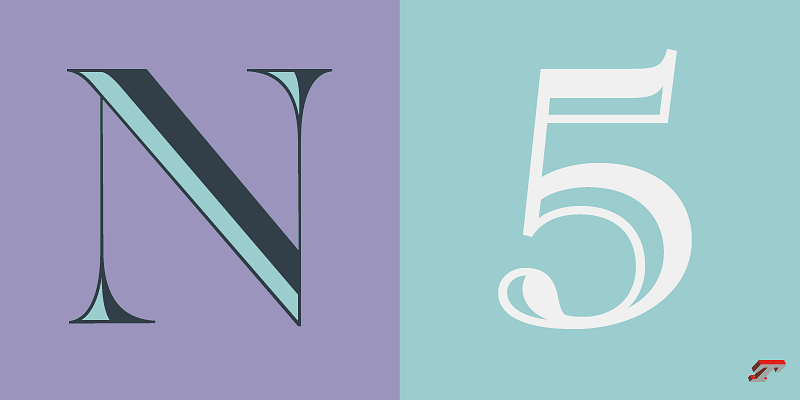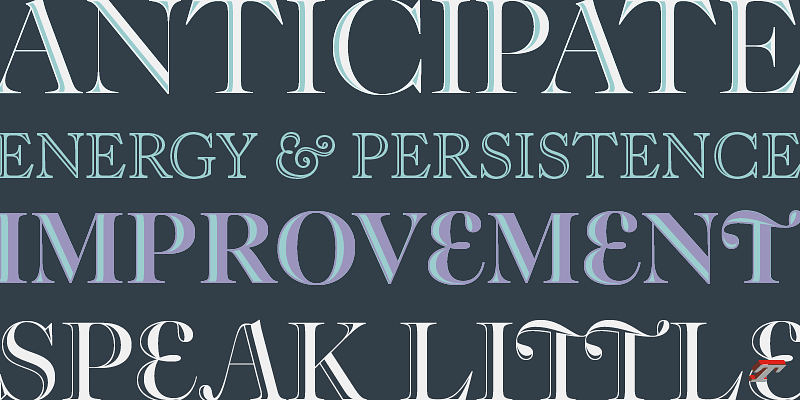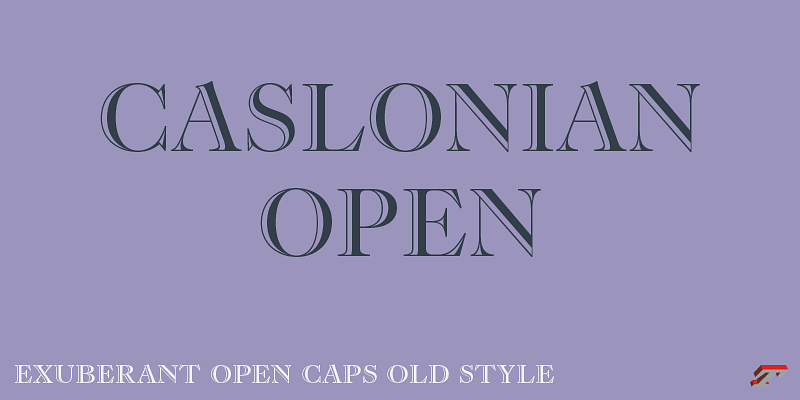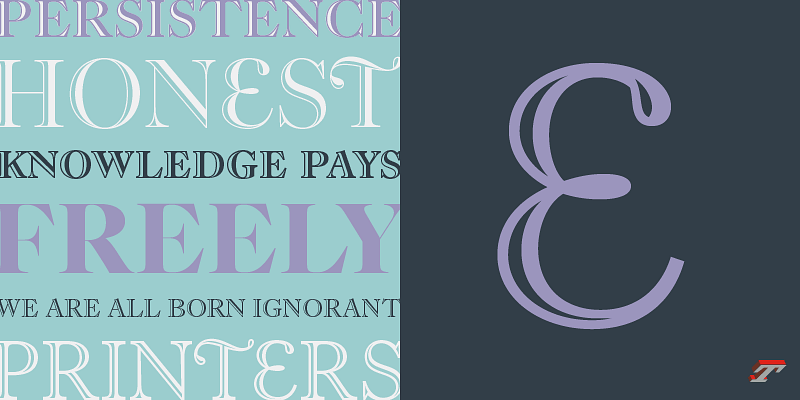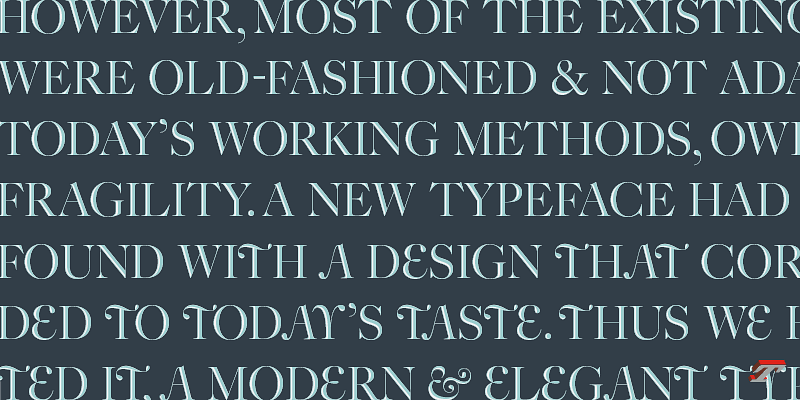
Caslonian Open allows the illuminated open part of the letter to be in different color when they are superimposed. The size of the empty-open parts adapts to each styles. The diacritics of the capitals have been drawn shorter to help the tight line spacing of capitals, particularly useful on the cover of magazines.